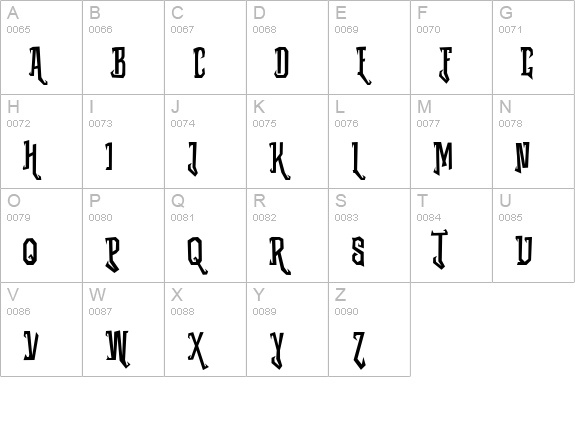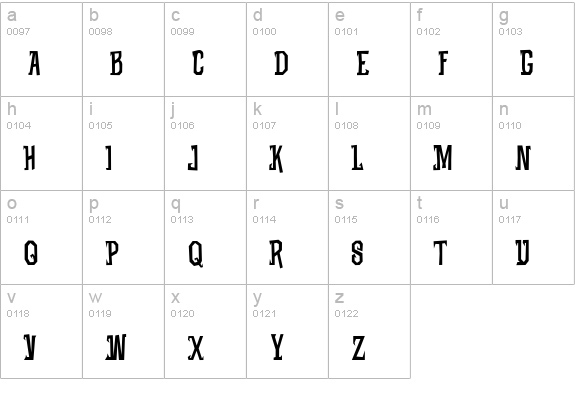
Wolfa Font Details
Introducing Wolfa Font, a modern and stylish typeface designed to elevate your design projects to the next level. With its sleek lines and elegant curves, Wolfa Font exudes sophistication and professionalism. This versatile font is perfect for a wide range of applications, from branding and logo design to invitations and social media graphics.